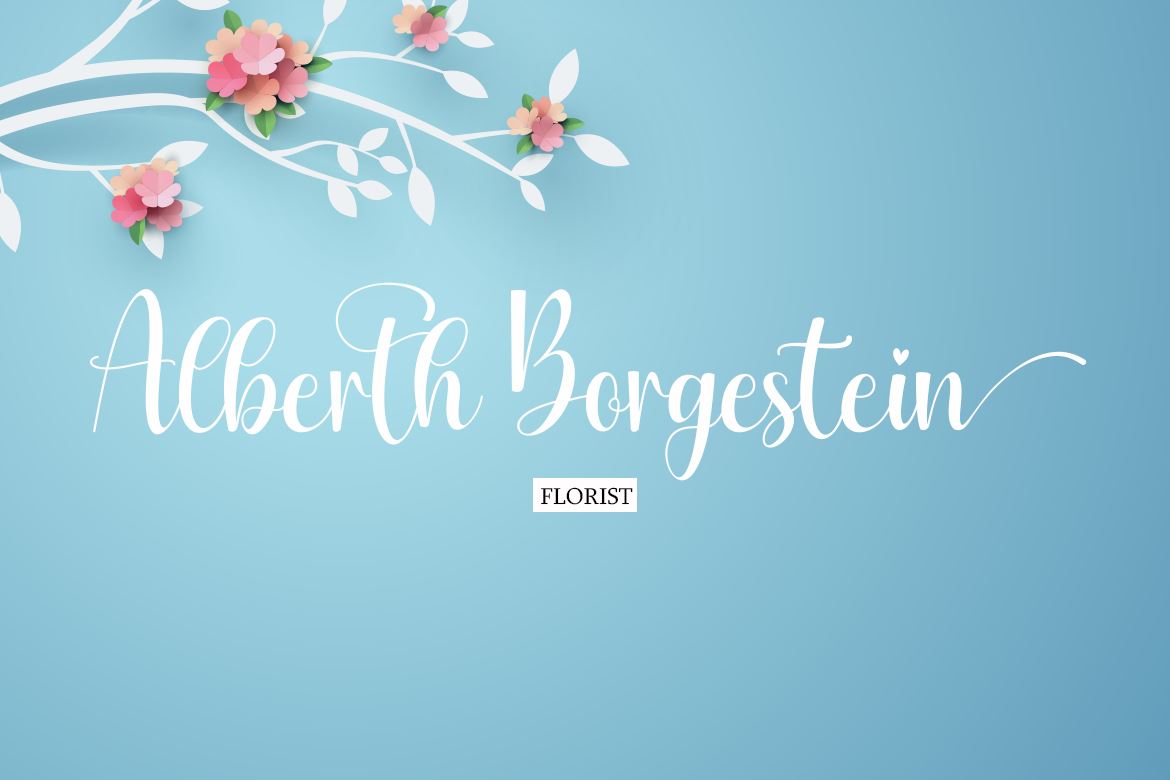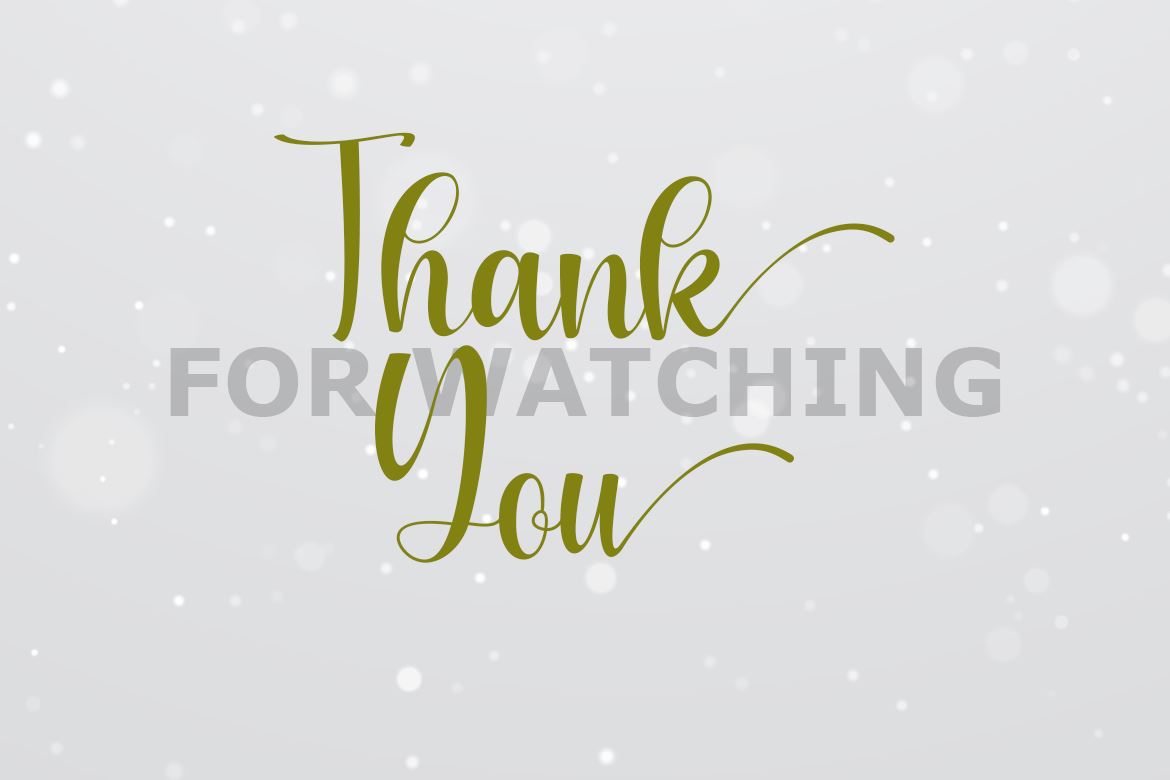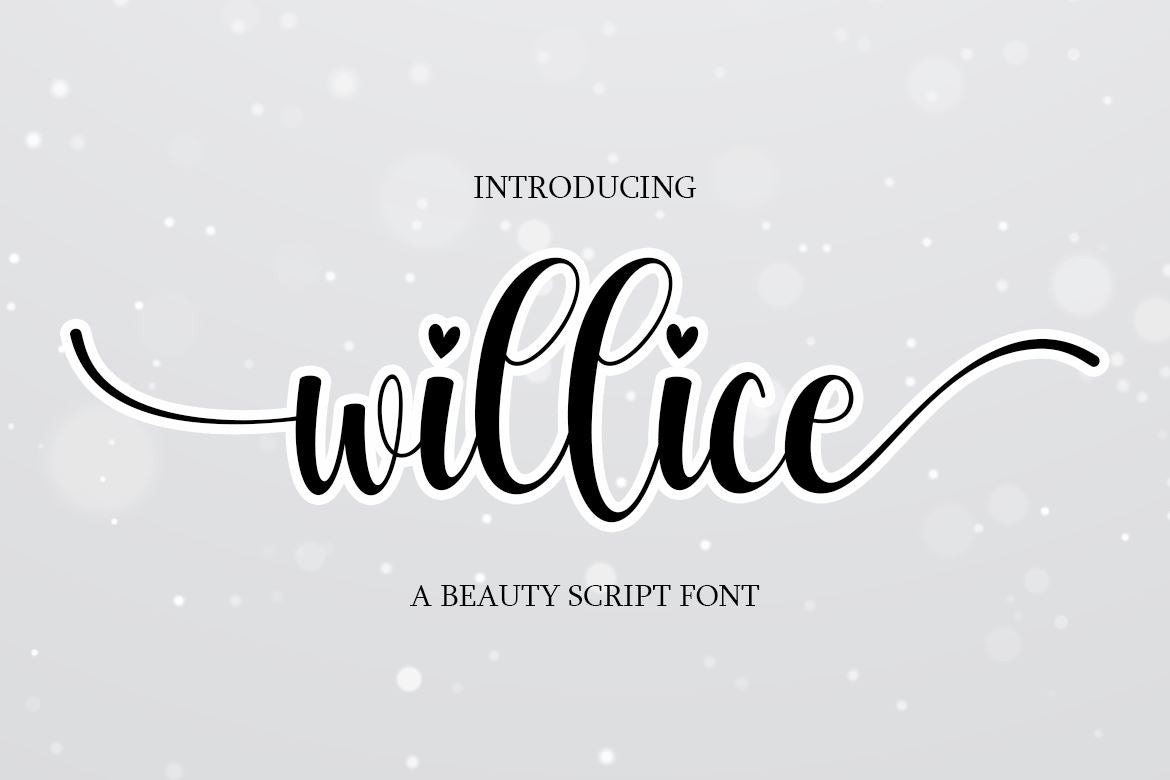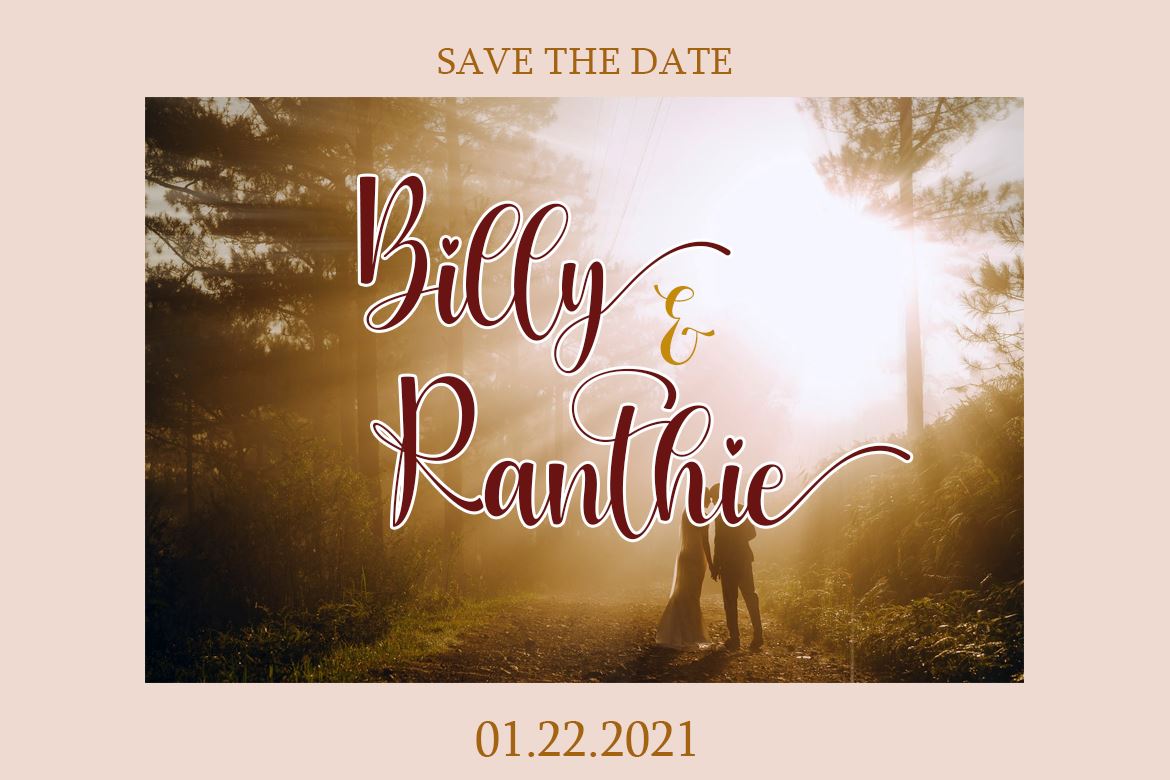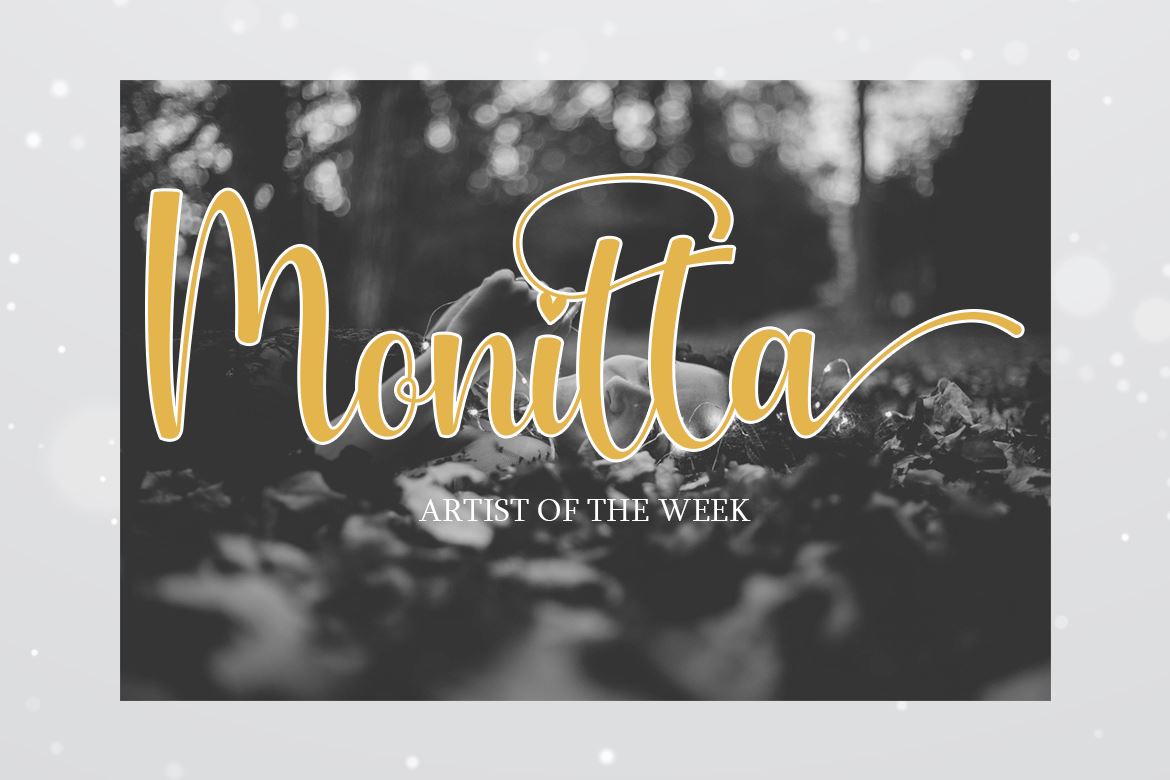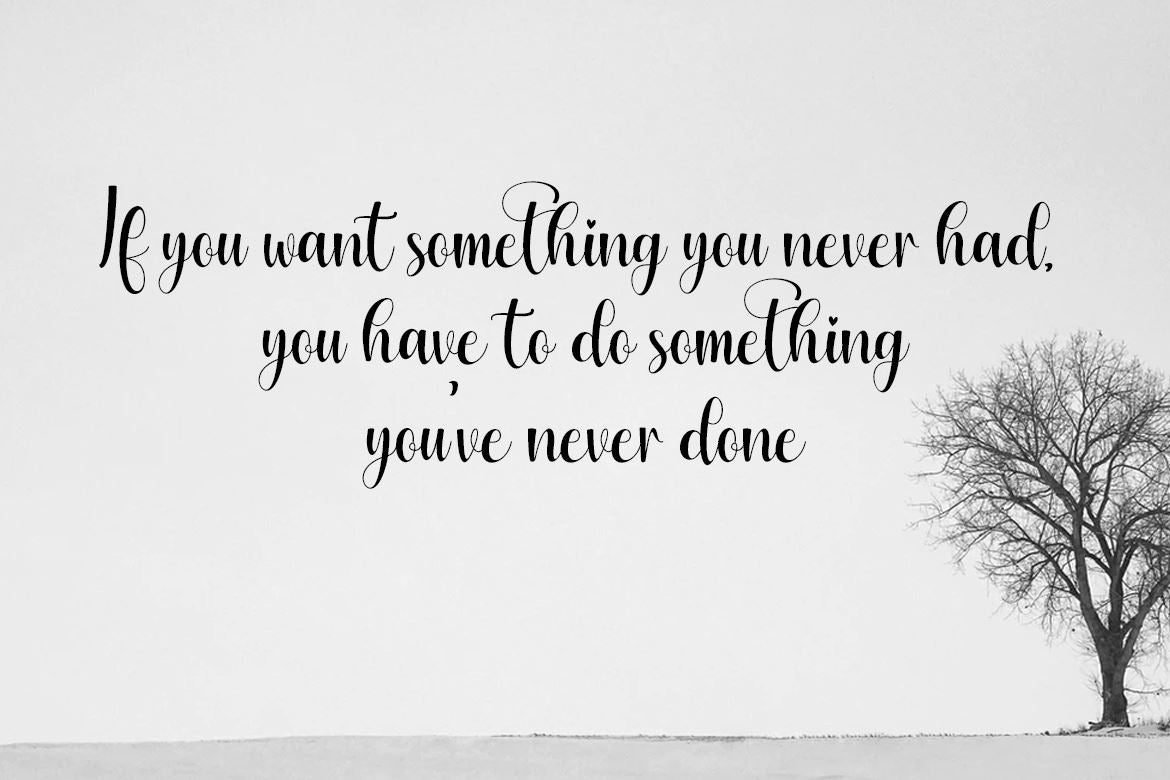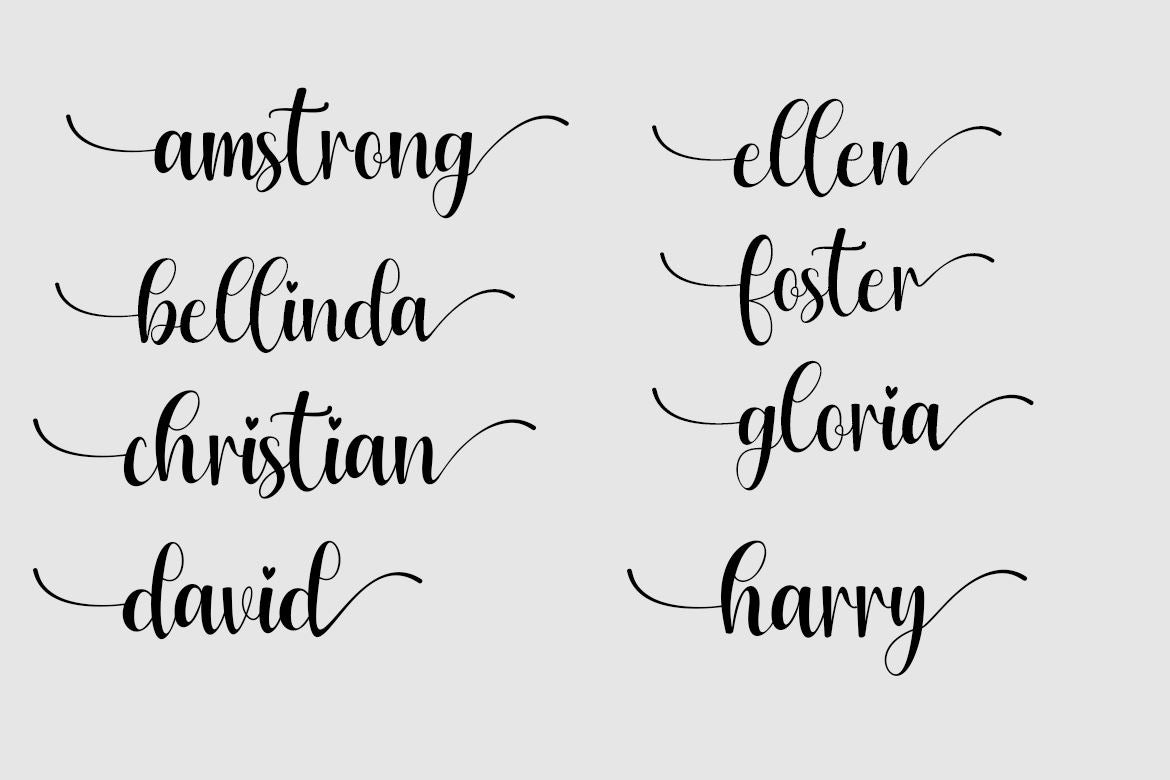
About Willice
Hello Introducing my new collection font It’s name Willice is a delicate, elegant and flowing handwritten font. Add it to your most creative ideas and notice how it makes them come alive! This font is PUA encoded which means you can access all of the glyphs and swashes with ease! FEATURES : – TTF/OTF/WOFF – Ligatures – Alternates option – Uppercase and Lowercase letters – Numbering and Punctuations – Multilingual Support – Works on PC or Mac – Simple Installation – Support Adobe Illustrator, Adobe Photoshop, also works on Microsoft Word Hope you Like it. Thanks.